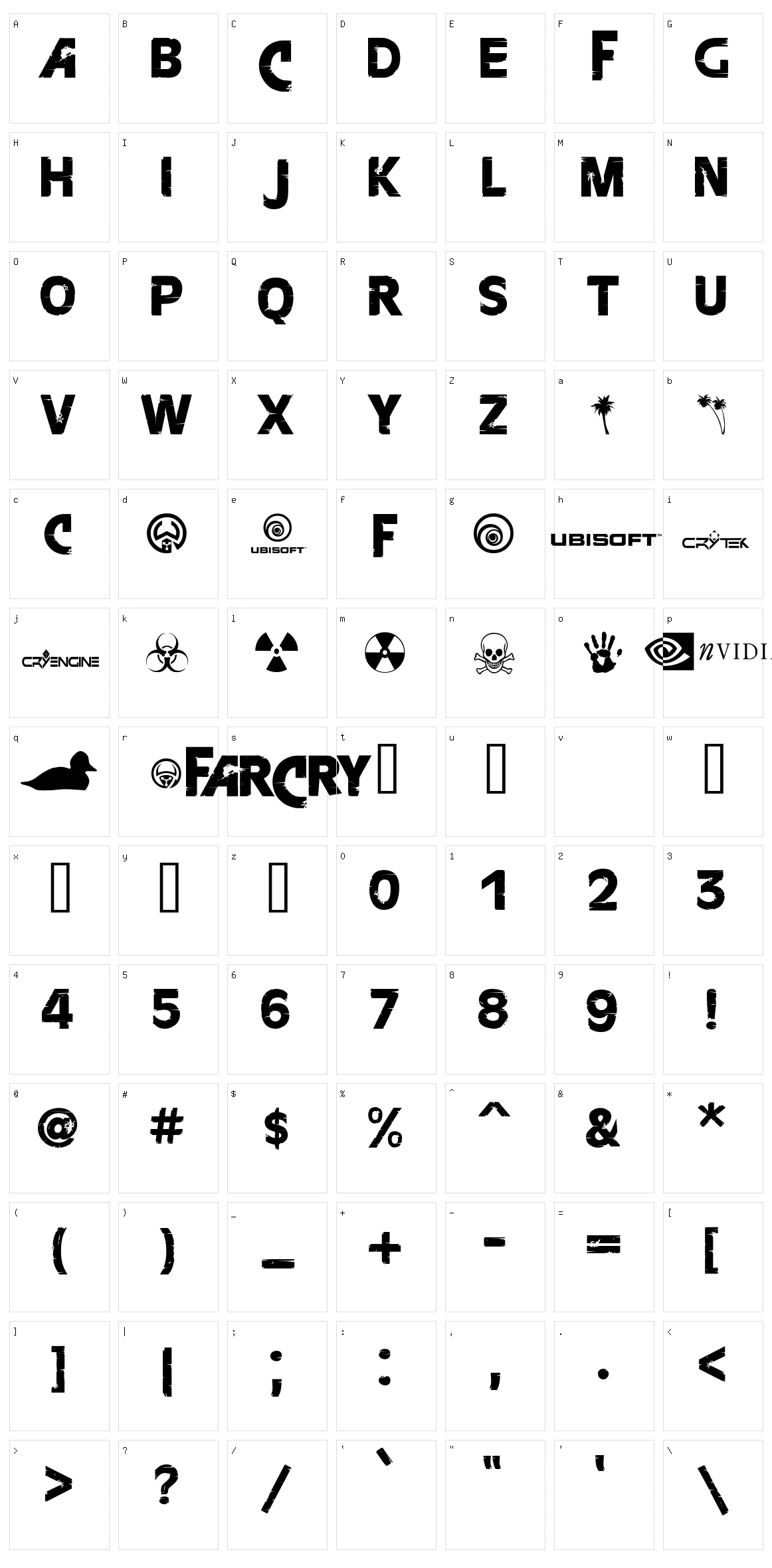
Font: FarCry Logo Font v1.1
(This is almost a complete uppercase font now, only missing minor little used chars like tilde and curley brackets)
- Rescaled some of the symbols
- Added a lot more punctuation (almost all)
- Changed the width of the space char. (made more narrow)
- Changed some letter spacing, still not perfect ;/
- Punctuation included in this version:
! @ # $ % ^ & * ( ) [ ] : ; " ' < > , . ? / \ | ` - _ + =
- Symbols included
a - Palm Tree
b - Dual Banana Palms
c - Smaller "C"
d - Krieger corp Logo 1
e - Ubisoft Logo
f - Smaller "F"
g - Ubisoft Logo Graphic
h - UBISOFT Text
i - CryTek Logo
j - CryEngine Logo
k - Biohazard
l - Radiation Hazard
m - Radiation Hazard Reversed
n - Skull & Bones
o - Bloody Palm Print
p - NVidia Logo
q - Ducky (Dont ask)
r - Krieger Corp Logo 2
s - FARCRY Logo
t - NOT USED
u - NOT USED
v - NOT USED
w - NOT USED
x - NOT USED
y - NOT USED
z - NOT USED
I have tried to recreate the look of the original font, which is pretty hard to do when you only have the letters "FARC, and Y". I am sure the Crytek/Ubi guys have a font, so I figured we should have one too. Took a while to find the root font, then I started from there. I was just going to release a package of Photoshop Custom Shapes, then I decided on a font. I still have the custom vector shapes for anyone who wants them.
The font is mainly uppercase, there are two lower case letters "f", and "c" the upper case versions of these letters are taller, the "F" is higher, and the "C" hangs lower. Use the lower case versions when you want them to resemble the rest of the uppercase letters. The remainder of the lowercase letters are symbols and logos from the game. The ducky is even there... hehe